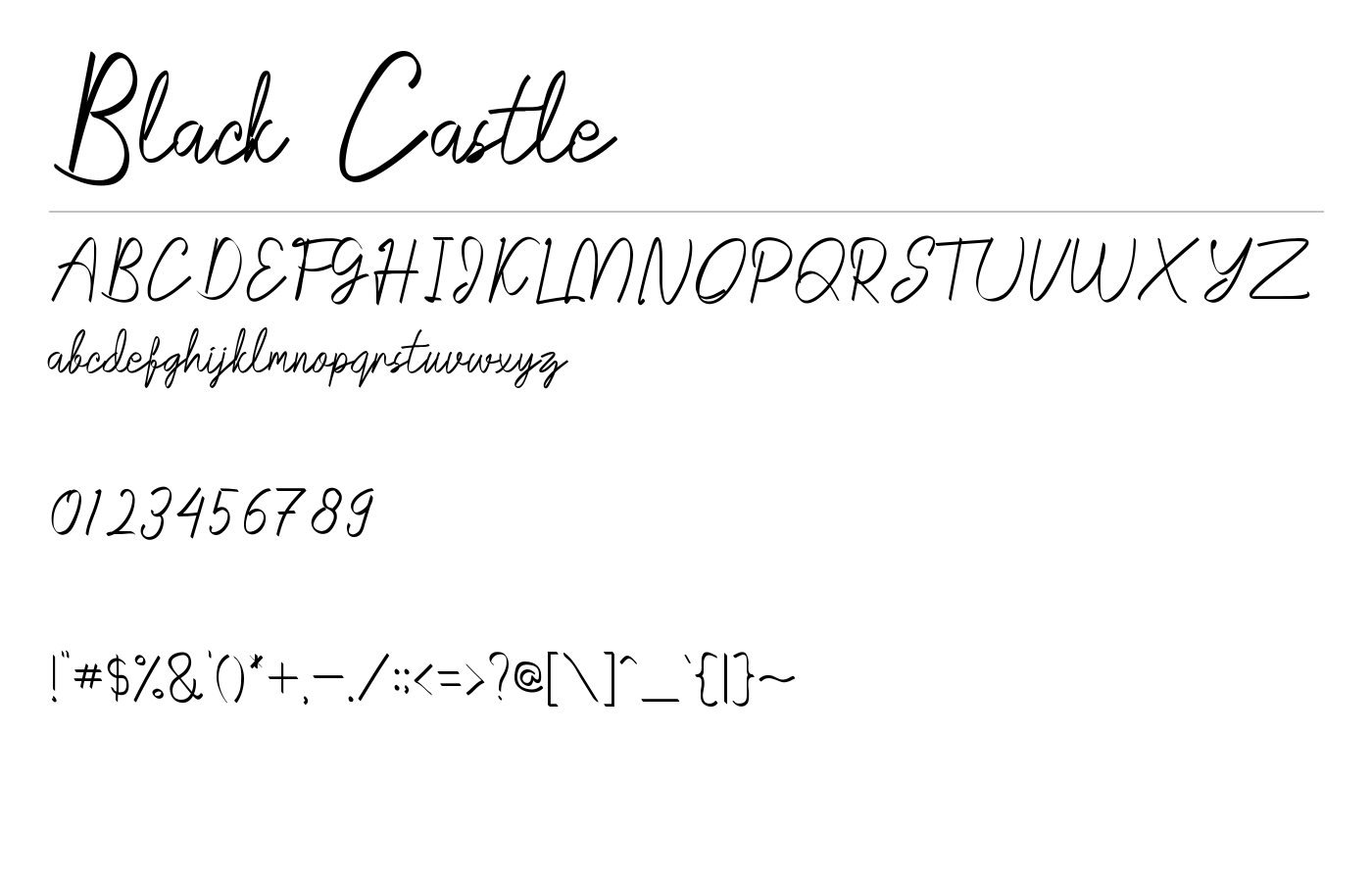
Black Castle is a delicate, handwritten script font featuring elegant, flowing letterforms with moderate contrast and a slight slant that adds a personal, casual touch. Its tall, slender characters with smooth curves and refined strokes make it ideal for invitations, branding, and creative projects where a graceful yet approachable style is desired. This font works well for adding a sophisticated, handcrafted feel to designs without overwhelming the overall composition.
Black Castle Font
About Black Castle Font